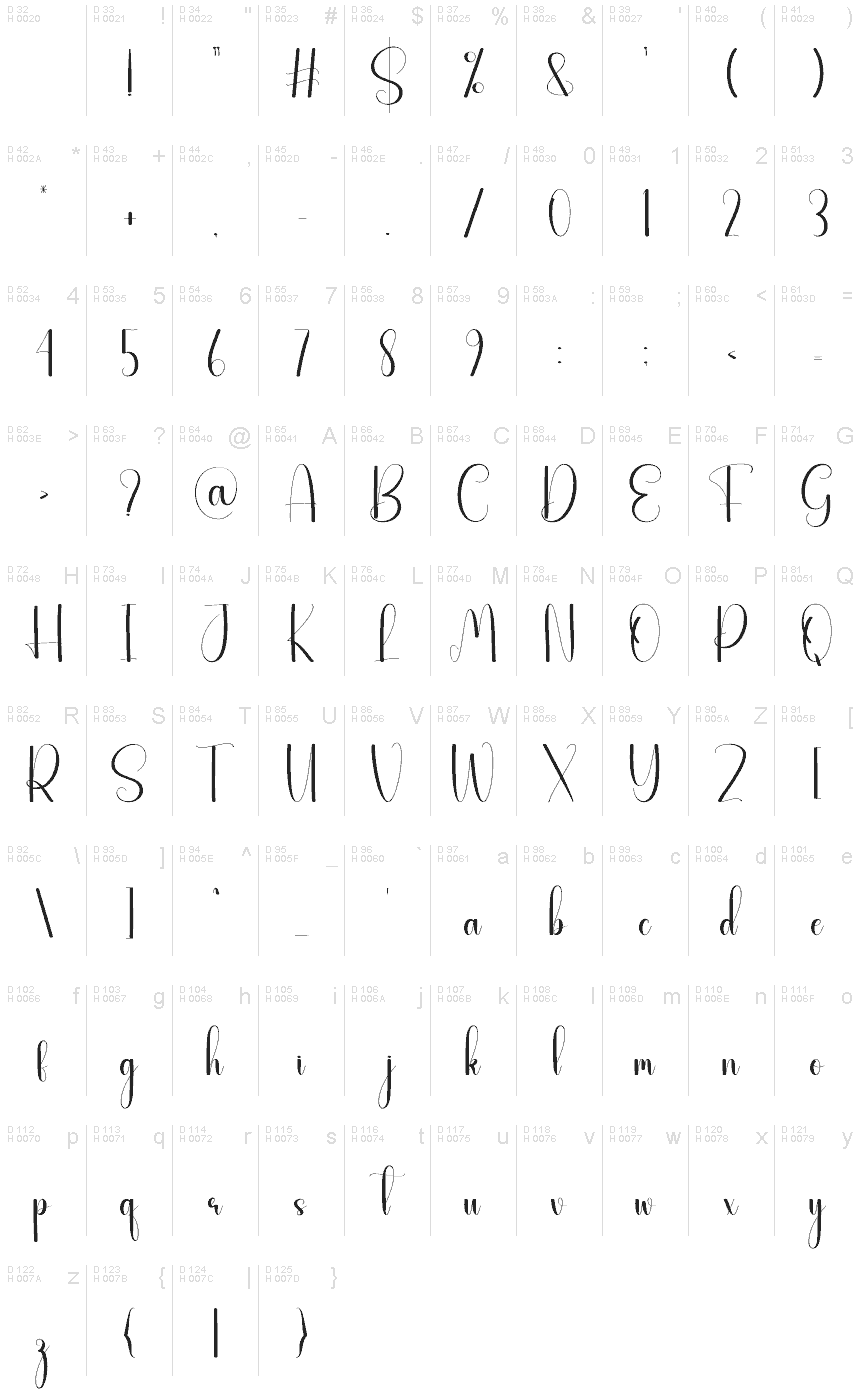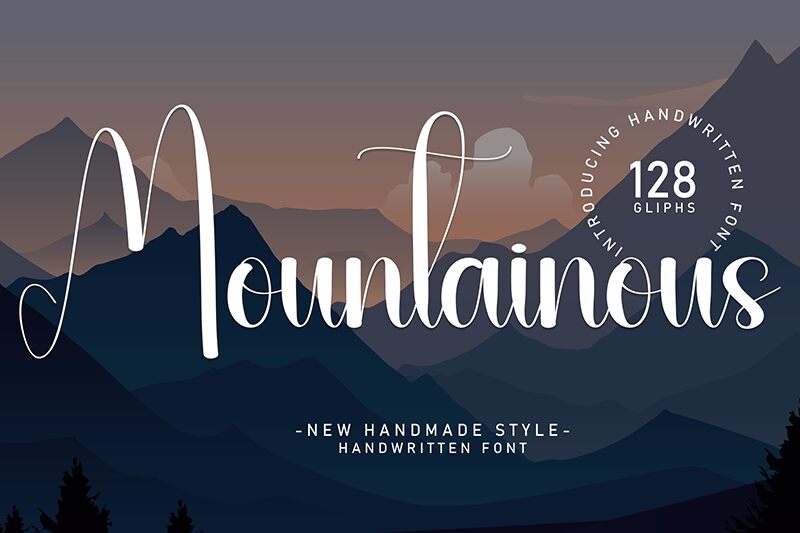
Mountainous
Mountainous font by Andi Moz is a free calligraphy font with a light weight and elegant appeal. Featuring flowing, graceful curves, it conveys a modern yet sophisticated style. The artistic flair makes the typeface very attractive to be used in your projects.
These includes wedding invitations, greeting cards, T-shirts designs, posters, flyers, personalized book covers and many more. It works for business cards of luxurious brands in addition to logos and labels for perfumes.